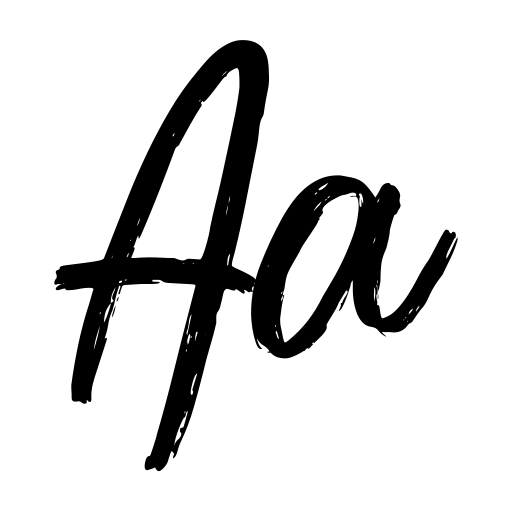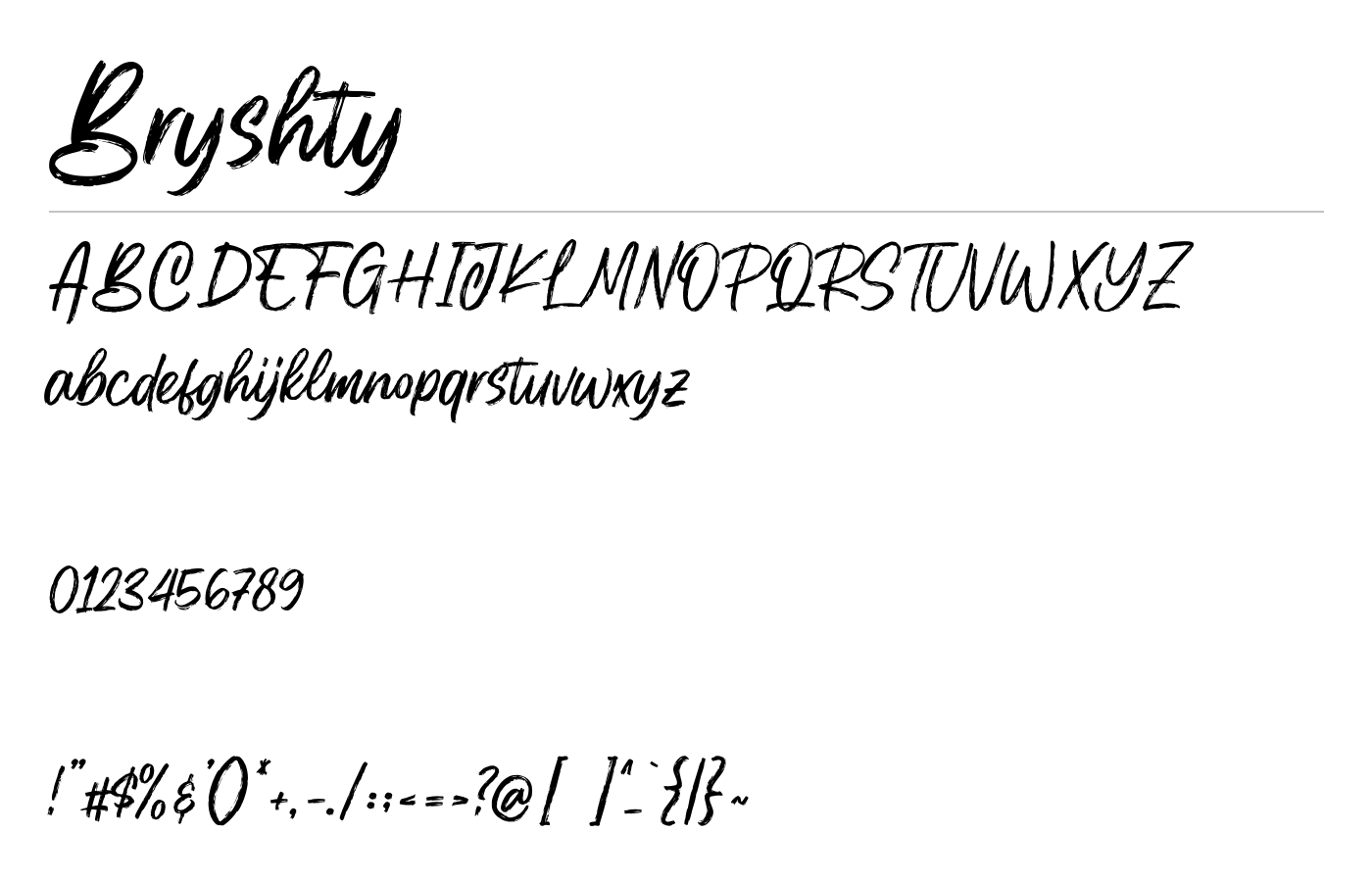
Bryshty is a lively and expressive handwritten script font featuring a dynamic brushstroke texture that adds a natural, artistic feel. Its casual and slightly messy style conveys creativity and energy, making it perfect for projects that want to evoke an approachable, personal touch. This font works well for branding, social media graphics, and invitations where a fun, informal, and handcrafted look is desired.
Bryshty Font
About Bryshty Font